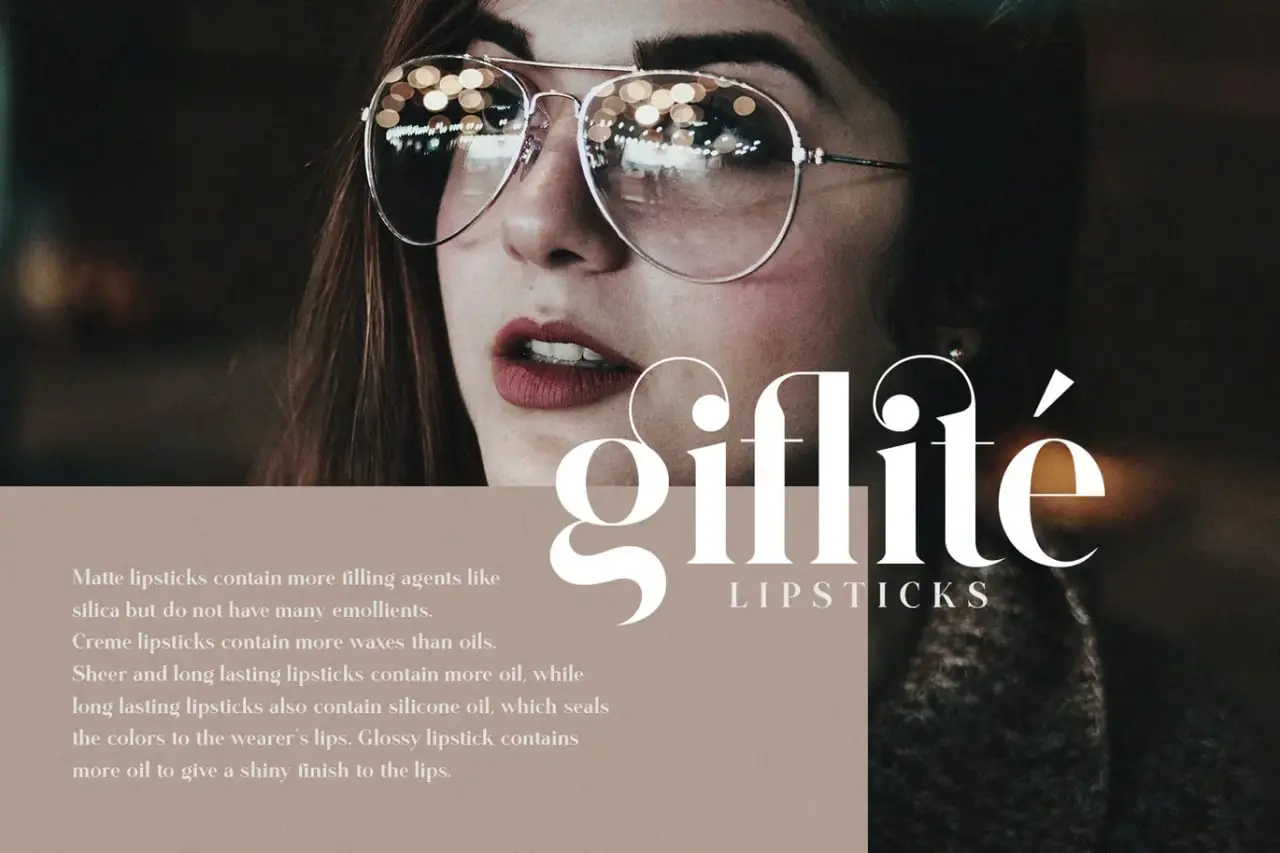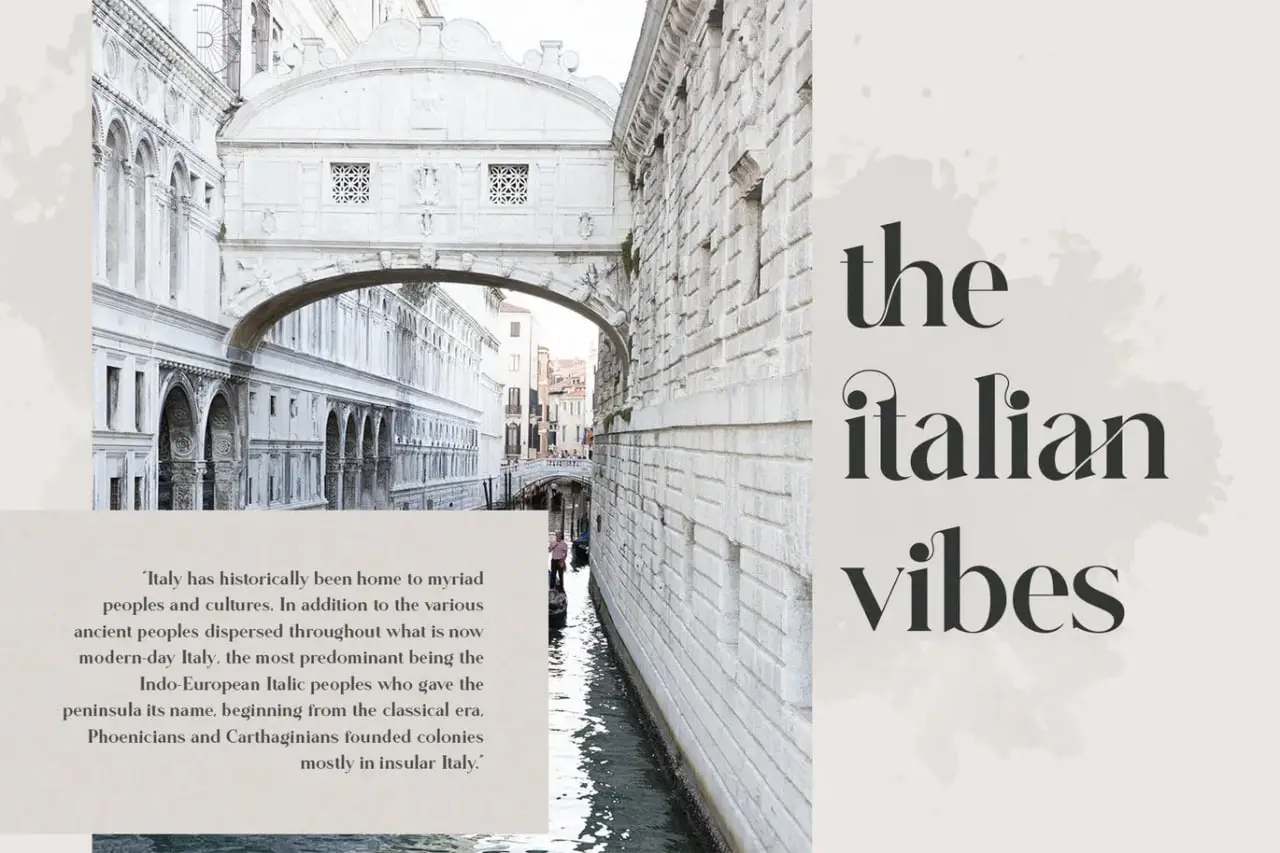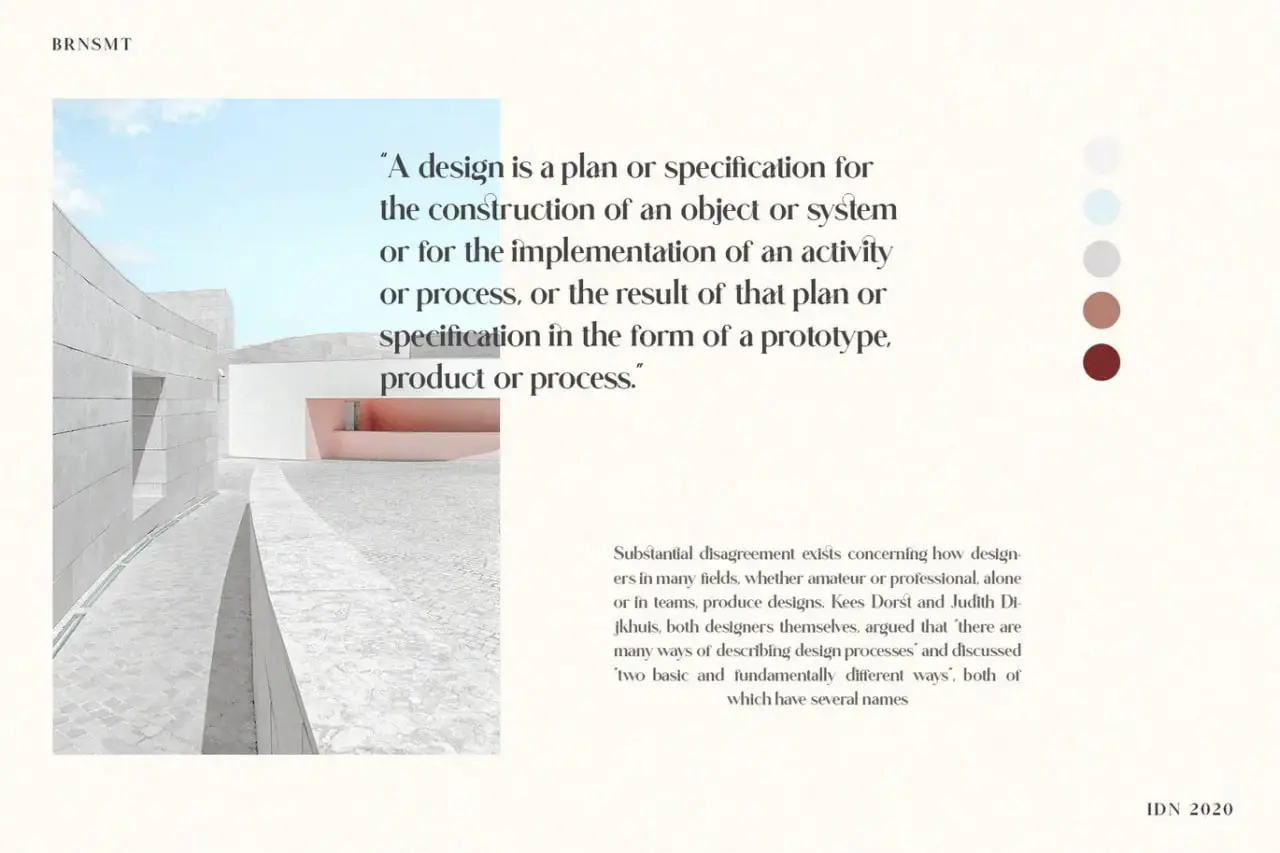
Glitten-Ligature Serif Font
The Glitten-Ligature Serif Font is a beautifully crafted typeface that combines elegance with modern design. This font features unique ligatures and a sophisticated serif style, making it perfect for a variety of applications.
• Stylish ligatures for a distinctive look
• Uppercase and lowercase letters included
• Numerals and punctuation for complete text support
• Styles: Serif with ligatures
• Ideal for branding, logos, and editorial design
• Perfect for print materials such as invitations and business cards
• Great for web use, enhancing the aesthetic of websites and digital products